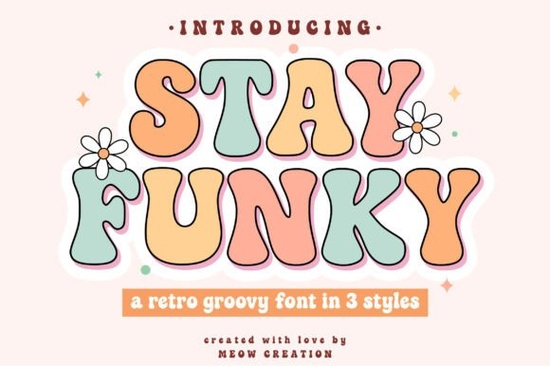
If you've been searching for a typeface that captures the free-spirited energy of the '60s and '70s, Stay Funky Font is worth a close look. This bold, playful display typeface bundles three styles Regular, Outline, and Shadow so you can mix and match without hunting for separate fonts. Whether you're designing T-shirts for a print-on-demand shop or cutting vinyl decals with your Cricut, it delivers that unmistakable retro groove right out of the box.
What Makes a Groovy Font Different From Other Display Fonts?
Display fonts cover a wide range of styles from sharp sports typography to elegant scripts. What sets a groovy font apart is its bubbly letterforms, curvy strokes, and rounded shapes that feel lighthearted and fun. Think flower-power posters, roller-disco flyers, and vintage concert art. Stay Funky Font leans heavily into that aesthetic with thick, inflated characters that almost seem to bounce off the page.
That said, it's not the only bold option out there. If you also work on athletic or school-themed projects, a varsity-style sport font covers a completely different mood blocky, structured, and competitive. Having both styles in your library means you're ready for a wider range of client requests.
Who Is This Font Best Suited For?
Stay Funky Font works well for anyone who needs attention-grabbing headlines and short text with a vintage personality. Specifically:
- Print-on-demand sellers designing retro-themed T-shirts, hoodies, and tote bags
- Cricut and Silhouette crafters making stickers, decals, and party decorations
- Small business owners creating playful logos, menu headers, or event posters
- Social media managers who want bold quote graphics that stop the scroll
- Scrapbookers and journal makers looking for a fun headline font
It's important to note that groovy display fonts like this one aren't designed for long paragraphs or body copy. They shine in short, punchy applications titles, subheadings, single words, or callouts where personality matters more than readability at small sizes.
What Comes Included in the Download?
When you grab the Stay Funky Font display font bundle, you get three distinct styles:
- Regular solid filled letters for everyday retro designs
- Outline hollow letters that let background colors or patterns show through
- Shadow adds a dimensional pop that works great on posters and T-shirts
You'll also receive SVG font files, which are especially useful for cutting machines. SVGs maintain clean, scalable edges so your vinyl cuts come out crisp. The full groovy alphabet and bubble letter set means you won't be scrambling to find matching characters everything stays consistent across your project.
How Does It Compare to Other Retro and Vintage Options?
Creative Fabrica hosts a solid variety of display fonts, so it helps to know how Stay Funky Font stacks up. If your project calls for something warmer and more romantic, the Beautiful Smile Font offers a softer, friendlier feel. For seasonal or beach-inspired work, the Summer Forever Font leans into a laid-back vacation vibe.
On the other hand, if your design leans sporty rather than groovy, a sports varsity font gives you that classic letterman-jacket look instead. Each of these serves a different creative purpose, so choosing the right one depends on the mood and audience of your project.
Tips for Using Groovy Fonts Without Overdoing It
A font like this makes a strong visual statement, which means a little goes a long way. Here are a few practical guidelines:
- Pair it with a clean sans-serif for body text so the design doesn't feel overwhelming
- Use the Outline style as a layering element place it behind the Regular style with a slight offset for a trendy multi-layer effect
- Limit your color palette to two or three retro-inspired tones (mustard yellow, burnt orange, avocado green) for a cohesive vintage look
- Test at actual size before cutting vinyl bubbly fonts can lose detail if scaled too small
Quick Checklist Before You Start Designing
Before you jump into your next project with Stay Funky Font, run through this short checklist:
- ☐ Decide which of the three styles (Regular, Outline, Shadow) fits your design
- ☐ Pick a complementary sans-serif font for any supporting text
- ☐ Select a retro color palette browse vintage design references on Creative Fabrica for inspiration
- ☐ Test your design at the size it will be printed or cut before finalizing